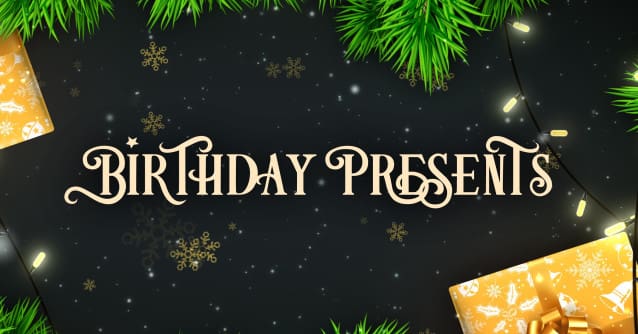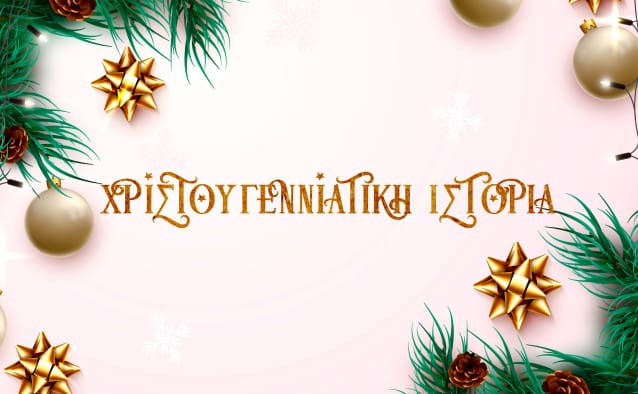
Christmas Joy Font
Christmas Joy Font a festive font cause it’s this time of the year again! Includes uppercase, lowercase, numbers, special characters and Greek.